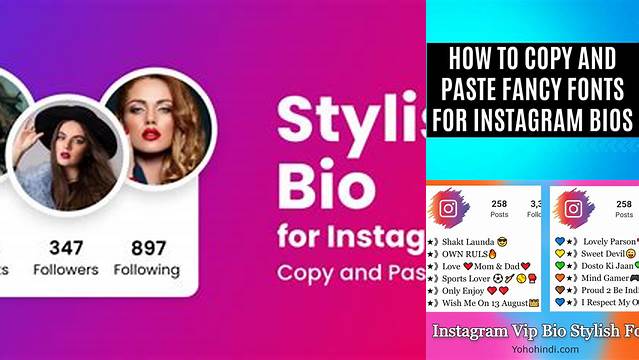
Instagram Bio Fonts: Copy & Paste Guide To Stylish Profiles
Hey everyone, are you ready to level up your Instagram game? We all know that your bio is like your digital handshake – it’s the first thing people see! It's your chance to make a killer first impression and tell the world who you are. And what better way to do that than with a super stylish and eye-catching font? Forget the boring default font; we're diving into the world of cool fonts for your Instagram bio that you can easily copy and paste. Let's get started and transform your profile from drab to fab!
1. Unleashing the Power of Instagram Bio Fonts: Why Bother?
Okay, so why go through the effort of finding a fancy font for your Instagram bio, right? Well, think of it this way: in a world where everyone's fighting for attention, you need something that makes you stand out. A unique font does exactly that! It grabs people's eyes and makes them curious. When someone lands on your profile, a stylish font shows that you pay attention to detail, that you're creative, and that you care about your online presence. These things are important, guys! Plus, using a cool font can really enhance your brand identity. Whether you're a business, a blogger, or just a regular user, a unique font can reflect your personality and style. It's a simple but effective way to create a memorable impression. Think about it: the default font is, well, default. It's everywhere! By switching things up, you're instantly setting yourself apart from the crowd. You're telling the world, "Hey, I'm different!" And trust me, in the competitive world of Instagram, that's a huge advantage. So, are you ready to boost your Instagram presence and show off your unique style? Let's dive into the world of cool Instagram fonts and copy-paste your way to success.
2. Where to Find Amazing Fonts for Instagram: Your Toolkit
Alright, so you're on board and ready to jazz up your bio. The next question is: where do you actually find these amazing fonts for Instagram? The good news is, there are tons of free online tools that make it super easy to generate fancy text. No need to be a tech whiz; these tools are designed for everyone to use. One of the most popular and user-friendly options is a website or app that specializes in Instagram fonts. Usually, you just type in your desired text, and the tool automatically generates the text in a bunch of different fonts. You can then browse through the options, choose your favorite, and simply copy and paste it into your Instagram bio. Easy peasy! Other cool places to find fonts include dedicated font websites, which offer a wider variety of styles, from elegant and classic to quirky and modern. Many of these websites also have a preview feature that lets you see how the font looks before you commit. This is super helpful for making sure the font perfectly matches your brand or style. Always remember to ensure the font is easily readable, as the main goal is to communicate your message effectively. Also, consider using a font generator that provides compatibility with various devices, ensuring your text appears correctly on both Android and iOS.
3. Decoding the Copy and Paste Method: The Simple Steps
Now, let's talk about how to actually get those fonts into your Instagram bio using the copy-and-paste method. It's unbelievably simple, but here's a step-by-step guide to make sure you've got it down pat. First, open up your chosen font generator in your web browser or on your phone. Type in the text you want to use in your bio. The tool will instantly generate the text in a bunch of different fonts. Scroll through the options until you find the font you love. Once you've found your font, select the formatted text. You can usually do this by tapping and holding on the text until the "copy" option appears. Tap "copy". Next, open the Instagram app on your phone. Go to your profile and tap "Edit Profile". In the "Bio" section, tap inside the text box to open the keyboard. Tap and hold again in the text box. The "paste" option will pop up. Tap "paste", and boom! Your fancy font is now in your bio. Save your changes, and you’re all set! This is probably the easiest way to stand out with stylish fonts for your Instagram bio: copy and paste.
4. Top Fonts for Instagram Bios: Our Curated List
Let's jump into some awesome font suggestions! Here's a curated list of some of the coolest and most popular fonts you can use for your Instagram bio. Firstly, you've got your handwritten fonts, which add a personal and friendly touch. These are great if you want your bio to feel approachable and authentic. Secondly, there are bold fonts that make your bio pop. These are perfect for highlighting key information or for making a strong statement. Next, you have the italic fonts, which give a touch of elegance and sophistication. These fonts work well for businesses that want to project a professional image. And then there are the fancy fonts. If you want to add a bit of flair and creativity, these are your go-to. These fonts include a variety of styles, from bubbly and playful to elegant and intricate. Finally, for businesses, consider using a sans-serif font, as they're generally easy to read and provide a clean, modern look. Make sure you test out your font on your own device to ensure it looks great and is easy to read. Using these top fonts will help your Instagram profile be eye-catching and memorable. So, go ahead and give them a try, and let your Instagram bio make a statement!
5. Best Practices: Ensuring Your Bio Looks Fantastic
It's not just about the font; it’s about how it looks! Here's how to ensure your Instagram bio looks its best. Clarity is Key: Always choose fonts that are easy to read. While a fancy font might look cool, if people can't understand your message, it's useless. Keep it Concise: Instagram bios have a character limit, so make sure to keep your bio concise and to the point. Use the font to highlight the most important information. Match Your Brand: Your font should reflect your brand's personality. If you're a fun, playful brand, choose a font that matches that vibe. Consider the Background: Make sure your font contrasts well with your profile background. If your profile is light, a darker font will work best. If it's dark, go for a lighter font. Preview on Different Devices: Always check how your bio looks on different devices (iOS and Android) to make sure the font displays correctly. Remember, the goal is to create a bio that is both stylish and easy to understand, leading to a great user experience. Following these best practices will ensure your Instagram bio is not only visually appealing but also effective in getting your message across and engaging your audience.
6. Avoiding Common Font Mistakes: What to Watch Out For
Hey, even the pros make mistakes, right? Let's talk about some common font mistakes and how to avoid them. Choosing a Font That’s Too Complex: Avoid fonts that are overly intricate or difficult to read, because, as mentioned previously, the readability of your bio is most important. Using Too Many Different Fonts: Mixing too many fonts can make your bio look cluttered and unprofessional. Stick to one or two fonts at most. Ignoring the Character Limit: Instagram bios have a character limit, so don't try to cram too much information into your bio. It will look squished, and your message will get lost. Forgetting to Update Your Bio: Your bio isn't set in stone! If you’re running a sale or have a new product, update your bio to reflect that. Not Testing on Different Devices: Make sure your font looks good on both iOS and Android devices to ensure the best viewing experience for everyone. By avoiding these common font mistakes, you'll be able to maintain an Instagram bio that is both stylish and professional, which is a recipe for success.
7. Font Generators: The Ultimate Resource Guide
Let's talk font generators. These tools are your best friends when it comes to creating stylish Instagram bios. There's a whole bunch out there, and each one has its own perks. Some generators offer a wide variety of fonts, while others are specifically designed for Instagram. When choosing a generator, look for one that offers easy copy-paste functionality and supports a broad range of fonts. Some generators also allow you to preview how the font looks before you copy it, which can save you a lot of time and trouble. Always make sure the generator is user-friendly and works seamlessly with Instagram. Some popular font generators include LingoJam, InstagramFonts.io, and Cool Fonts. Experiment with different generators to find the one that suits your style and needs. Most importantly, always make sure the font generator can produce fonts that are easily readable, and that are compatible with both iOS and Android devices. A good font generator is a game-changer, allowing you to create a unique and engaging Instagram bio with ease.
8. The Psychology of Fonts: What Your Font Choice Says
Did you know that the font you choose can say a lot about you? Fonts aren't just about aesthetics; they also have a psychological impact on your audience. A sleek, modern font suggests professionalism and sophistication, which could be ideal for a business or a creative professional. On the other hand, a playful, handwritten font can make your profile feel more approachable and authentic. The right font helps you establish a personality and connect with your audience on a deeper level. For example, a bold font can grab attention and emphasize important information, while an elegant script font adds a touch of class. Understanding the psychology of fonts helps you choose a font that not only looks good but also conveys the right message. The font should reflect your brand's personality, values, and target audience. Whether you want to appear trustworthy, fun, or innovative, there's a font that can help you do it.
30. Conclusion: Your Instagram Bio, Your Style!
So, there you have it! You now have everything you need to master the art of stylish fonts for your Instagram bio. Remember, your bio is your digital handshake, and the right font can make all the difference. Don't be afraid to experiment, play around with different styles, and find what best reflects your personality or brand. With these tips and tricks, you're well on your way to an Instagram bio that pops! Now, go forth, copy, paste, and watch your Instagram profile transform. Have fun, be creative, and most importantly, let your unique style shine through. Happy Instagramming, everyone!